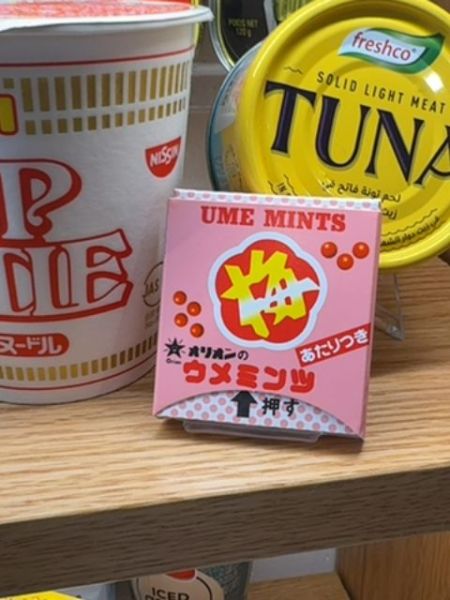
Ume Mints
A product that provides fresh breath with a unique ume flavor, originating from traditional Japanese cuisine.
The typography combines bold, sans-serif fonts for the English 'UME MINTS' text, giving it a modern and straightforward look. The Japanese characters use a playful, rounded font style, creating a friendly and approachable feel to reflect cultural authenticity.
The packaging is a small, pink, square box with vibrant red and yellow accents, reflecting a playful and eye-catching design. It features both English and Japanese text, emphasizing its cultural origin.
- Features a distinctive ume (Japanese plum) flavor.
- Designed to be compact and portable.
- Combines traditional Japanese flavors with a modern twist.